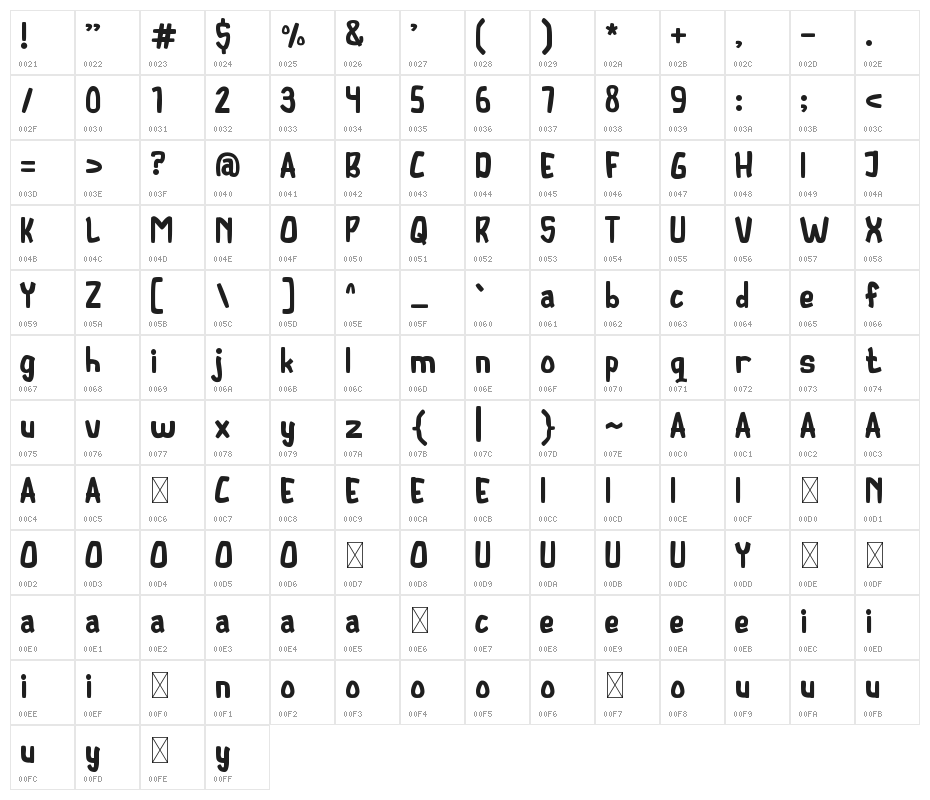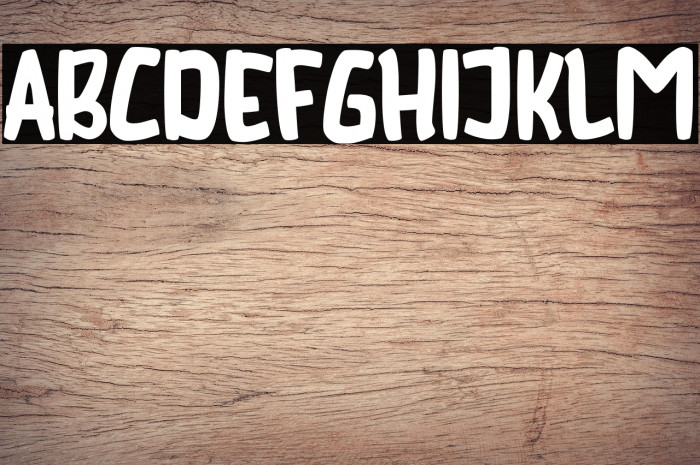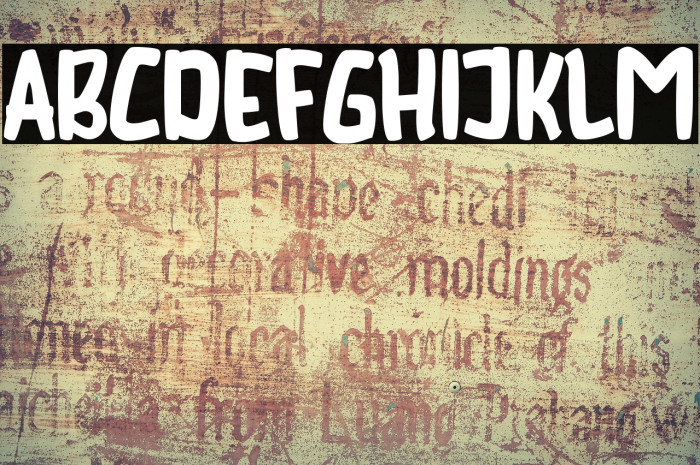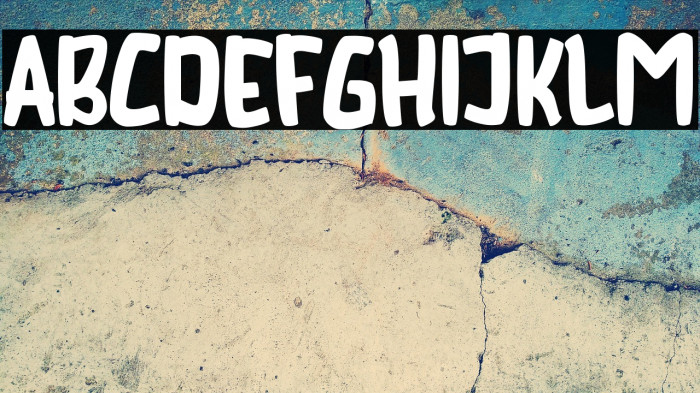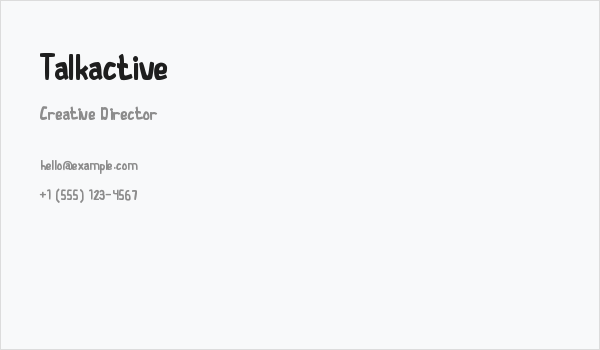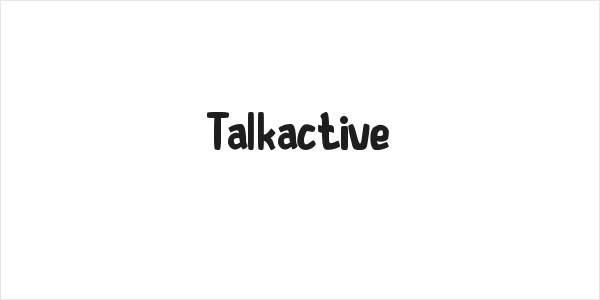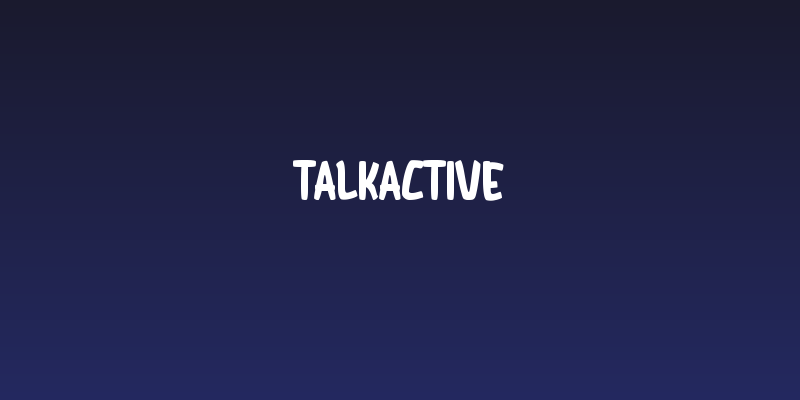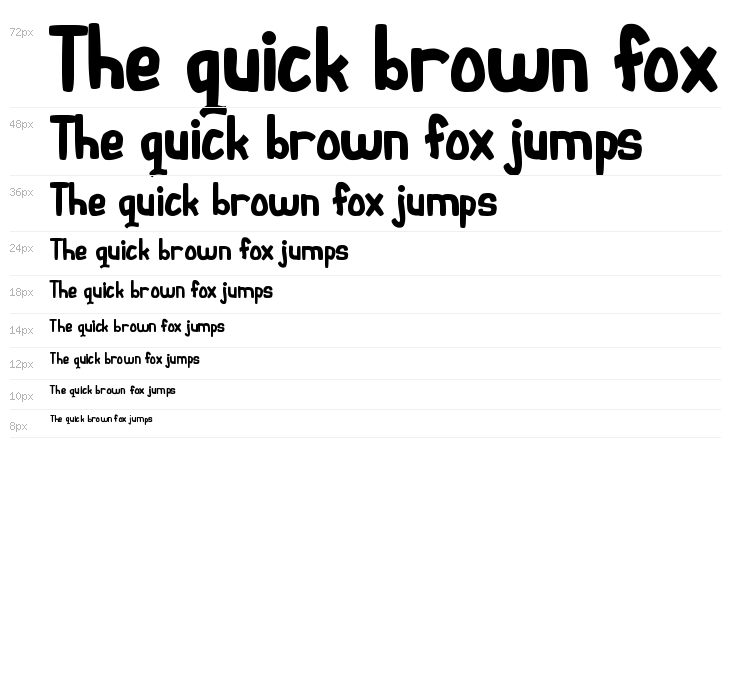
Talkactive Font
Talkactive Description
This font features a playful and bold style with a hand-drawn appearance. The letters are slightly irregular, giving it a casual and friendly feel. The uppercase and lowercase characters maintain a consistent thickness, contributing to a cohesive look. The numbers and special characters follow the same design principles, ensuring uniformity across all glyphs. The font's rounded edges and smooth curves enhance its approachable and informal aesthetic, making it suitable for creative and fun projects.
| Proposed Projects | Ideal for children's books, comic strips, playful branding, and informal event invitations. |